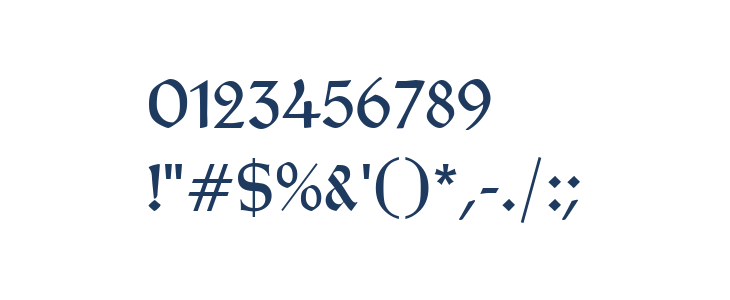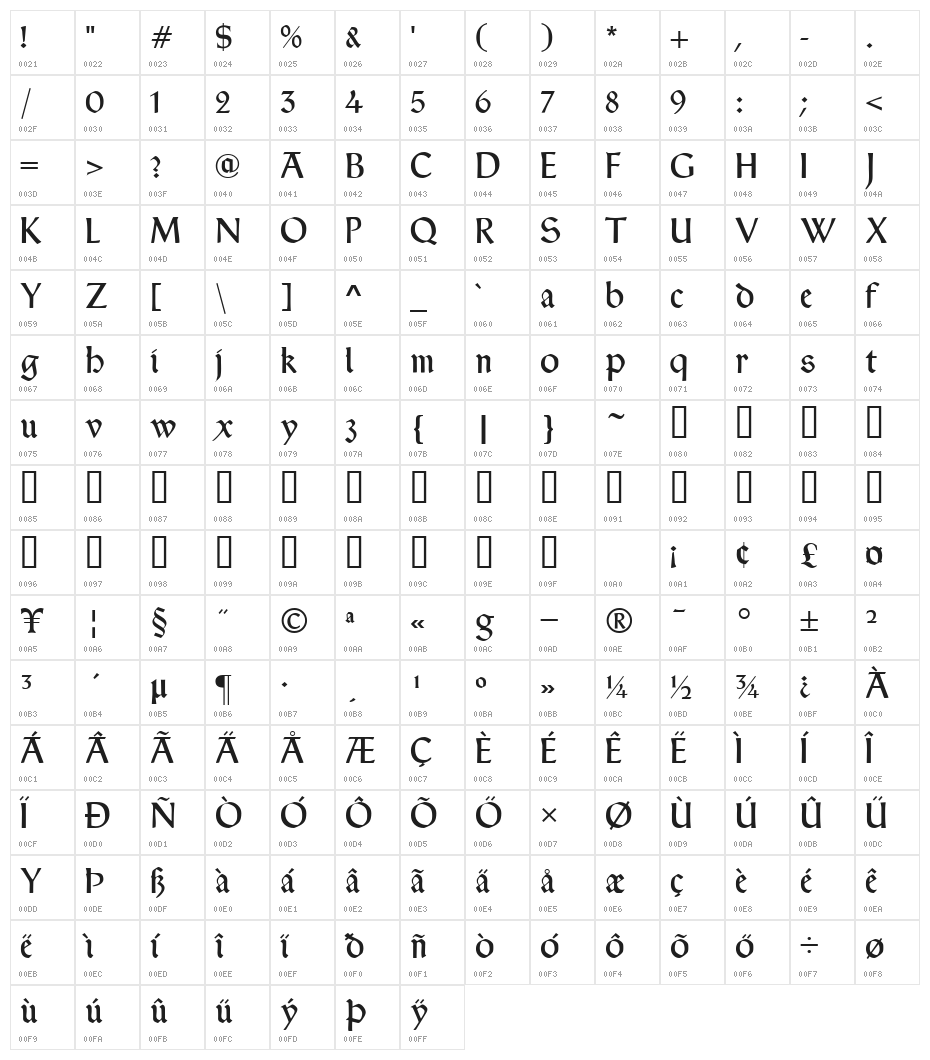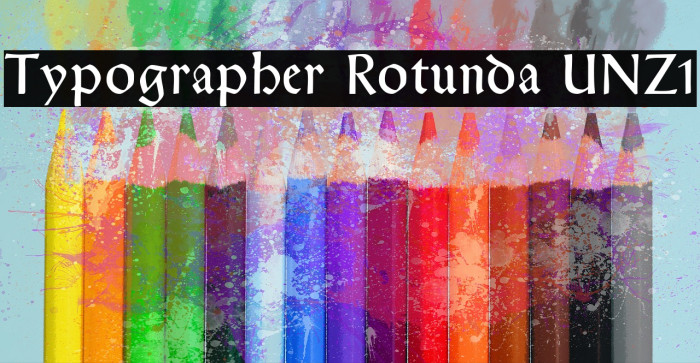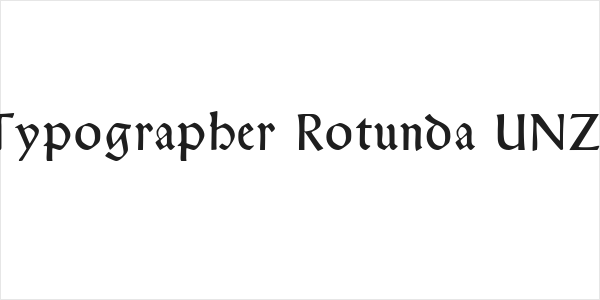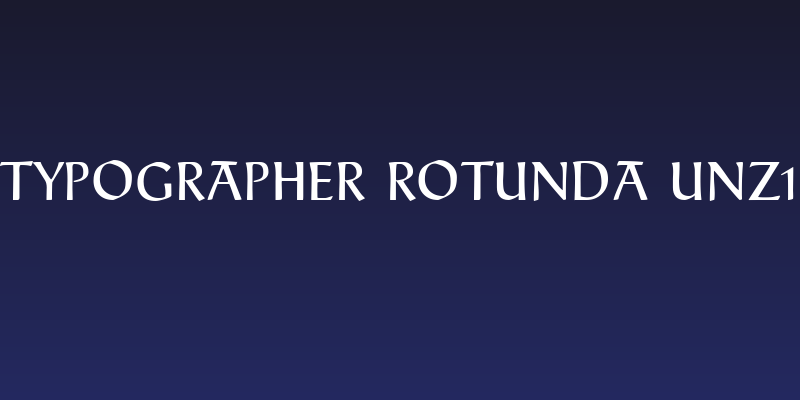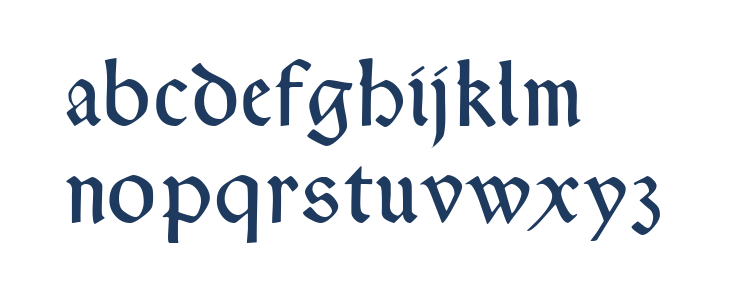
Typographer Rotunda UNZ1 Font
Typographer Rotunda UNZ1 Description
This font exhibits a classic blackletter style, characterized by its sharp, angular lines and distinct medieval aesthetic. The uppercase letters are bold and commanding, with a strong presence that is both historical and artistic. The lowercase letters maintain the traditional blackletter form, with intricate curves and pointed edges that add to the font's ornate appearance. Numbers and special characters are designed to complement the overall style, ensuring consistency throughout. This font is ideal for projects that require a touch of historical elegance and sophistication.
| Use Case | Headlines, Logos, Decorative text |
| Proposed Projects | Suitable for historical documents, invitations, certificates, and branding that requires a traditional or gothic touch. |